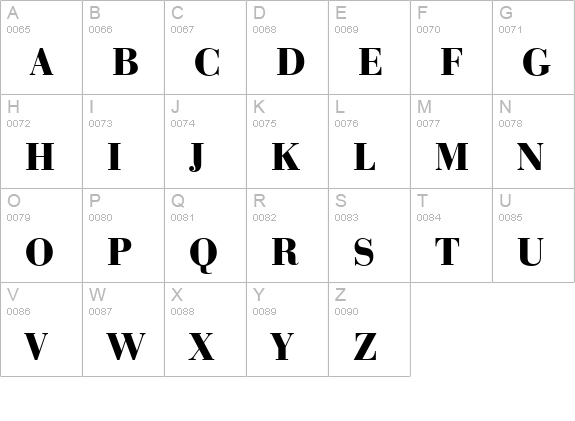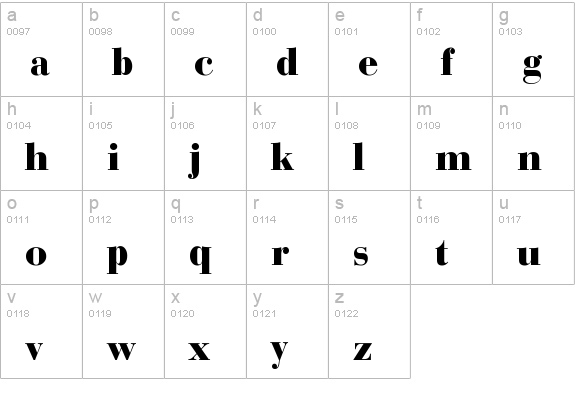
Bodoni-Display-Bold is a strong, high-contrast variant in the Bodoni typeface family \xE2\x80\x94 well suited to headlines, attention-grabbing titles, and strong calls-to-action.
Bodoni-Display-Bold is a sophisticated and elegant font that exudes class and style. Its bold and striking design commands attention, making it perfect for headlines, titles, and other prominent text. The sharp serifs and clean lines give this font a timeless and classic look that is sure to elevate any design project. What sets Bodoni-Display-Bold apart is not only its visual appeal but also the fact that it is available for free download at FontsMarket.com. This means that you can add this high-quality font to your collection without any cost, making it a valuable asset for designers, creatives, and anyone looking to enhance their work with a touch of sophistication. Whether you're working on a print design, website, poster, or any other project that requires a bold and eye-catching font, Bodoni-Display-Bold is sure to make a statement. Download it for free today and elevate your designs with this timeless and elegant typeface.